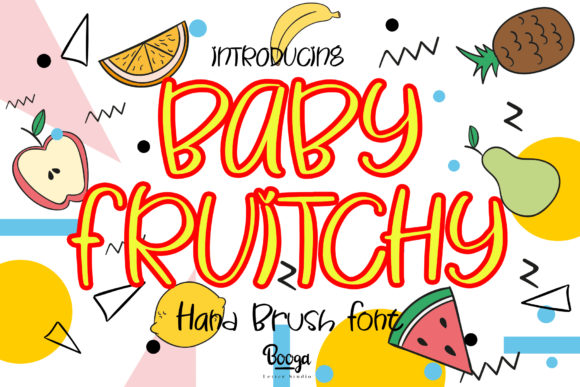
Captivating Introduction - Meet Baby Fruitchy, the Whimsical Font That Sparks Joy and Creativity!
Welcome to the delightful world of Baby Fruitchy, a charming display font that embodies playfulness and authenticity like no other. This captivating creation by boogaletter is a kaleidoscope of colors and charismatic charm, specially crafted to ignite your imagination and make your creative visions dance.
Savor the Sweetness of Baby Fruitchy - A Visual Feast for Every Occasion!
Indulge in the delectable treat of Baby Fruitchy's luscious design, a feast for your visual senses. Its playful curves and vibrant hues create a captivating allure, making it the perfect font for any child's activity, school project, or any endeavor that demands a touch of delightful whimsy.
Unleash Your Creative Palette - A Font That Transforms Your Designs!
With Baby Fruitchy as your creative companion, your designs will transcend the ordinary, blossoming into vibrant masterpieces. Its versatility knows no bounds, seamlessly blending with various design elements, promising projects that exude an unforgettable charm. Let Baby Fruitchy be your muse, igniting your creative spark and transforming your visions into extraordinary realities.
Embrace the Harmony of Colors - A Symphony of Visual Delights!
Baby Fruitchy is a maestro of color harmony, weaving a symphony of vibrant hues that dance across your screen. Its playful palette is a delight to behold, adding a pop of joy and personality to every design. Prepare to be mesmerized as Baby Fruitchy paints your creative canvas with its vibrant charm.
Experience the Simplicity of Use - A Font That's As Easy As a Walk in the Park!
Using Baby Fruitchy is a breeze, ensuring a seamless and enjoyable experience for designers of all levels. Its user-friendly nature makes it accessible to everyone, from seasoned professionals to enthusiastic beginners. Dive into the world of Baby Fruitchy and let its intuitive design guide you towards creative greatness.
A Font That Inspires and Enchants - The Perfect Addition to Your Creative Arsenal!
Baby Fruitchy is more than just a font; it's an invitation to let your creativity run wild, to embrace the magic of design, and to create projects that captivate and inspire. Its cheerful disposition adds a touch of magic to any project, transforming the mundane into the extraordinary. Let Baby Fruitchy be your creative catalyst, sparking imagination and turning your designs into works of art.